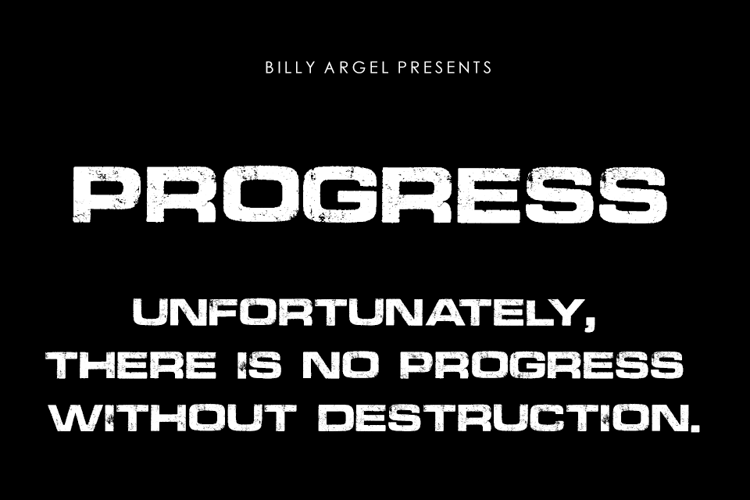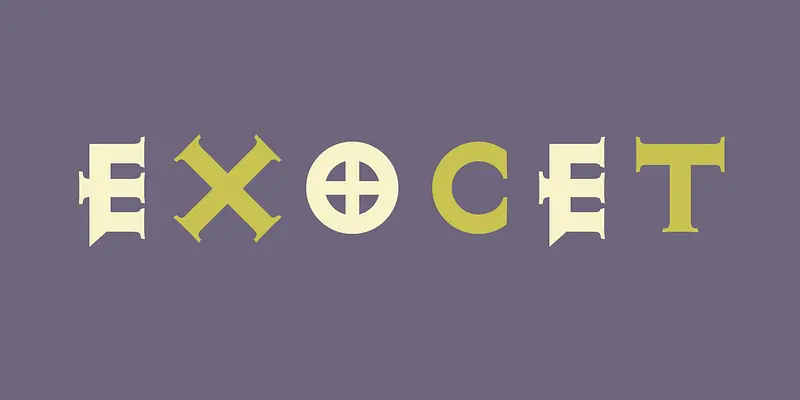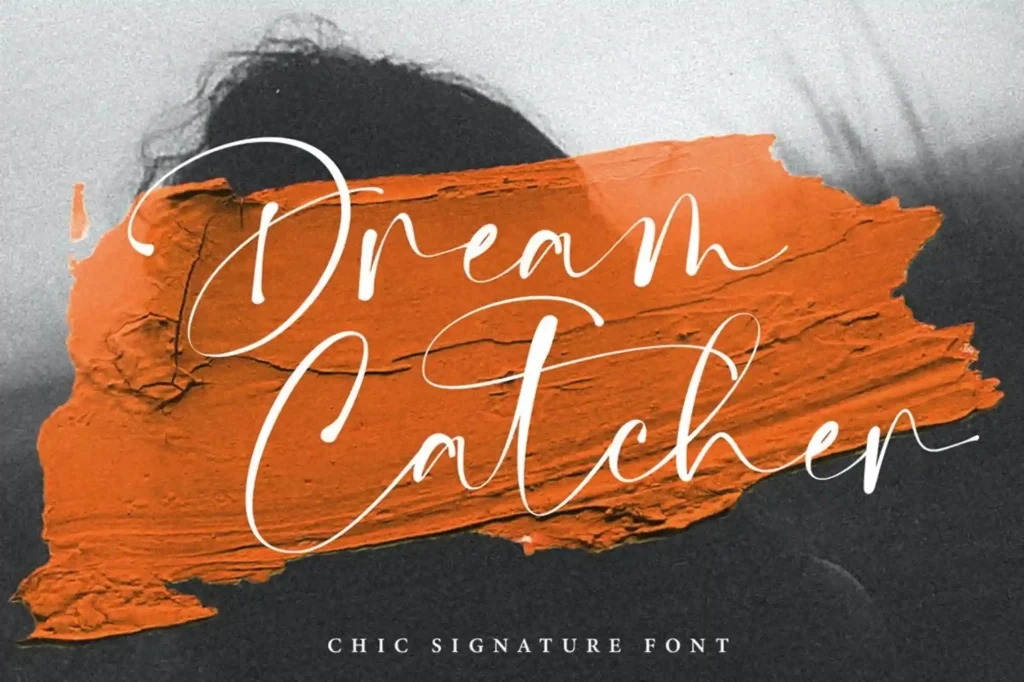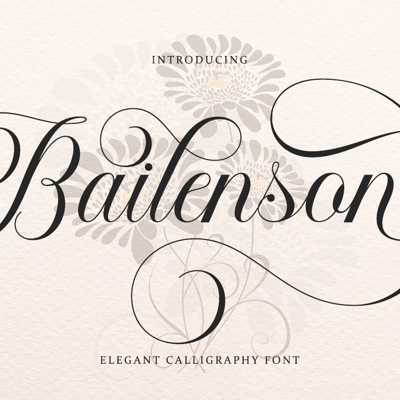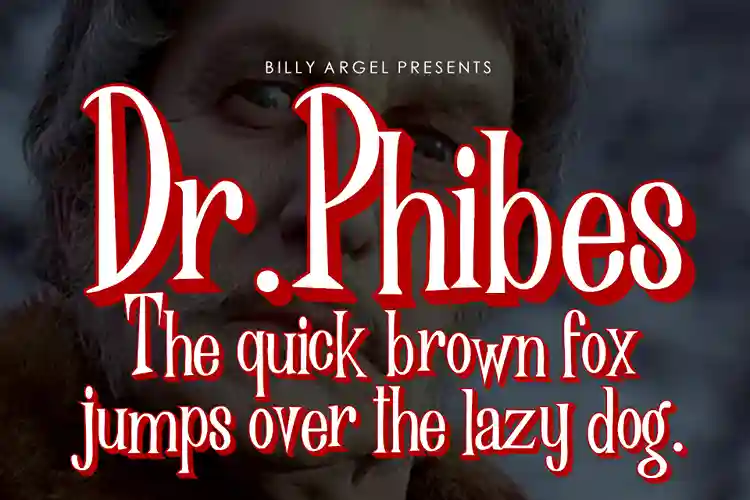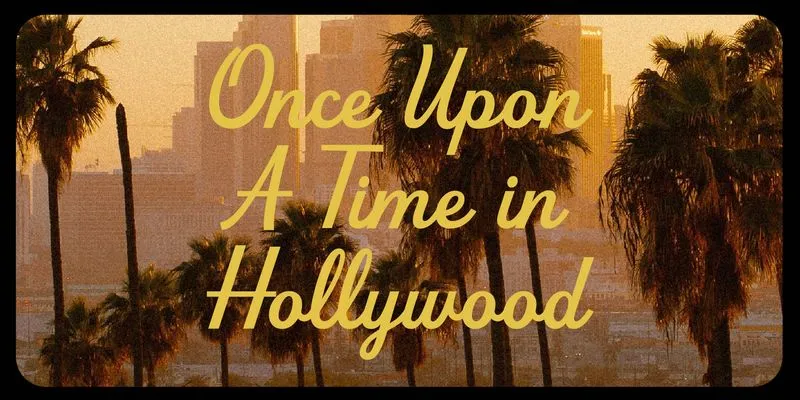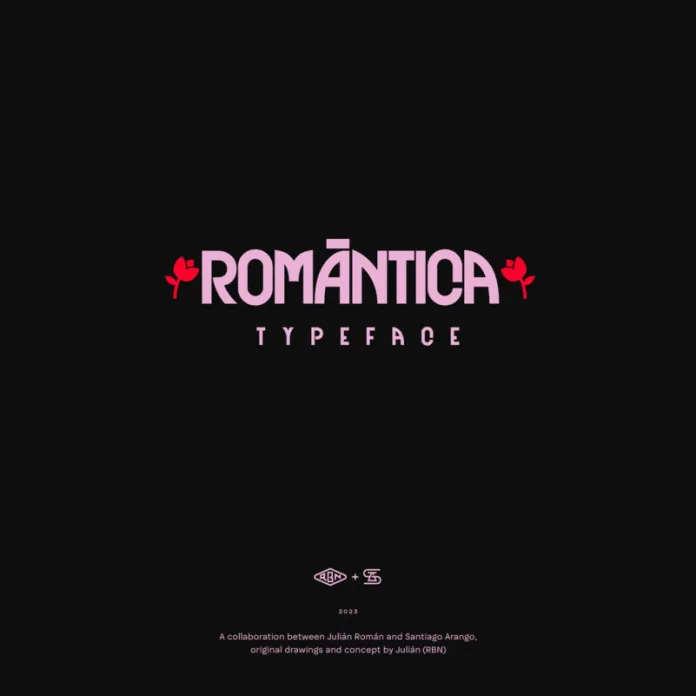
Movie poster fonts
10 Movie Poster Fonts to Make Your Design Go Viral
Typography is the cornerstone of movie poster design, acting as a silent storyteller that captures the emotion of a film and draws viewers in. From the tense curves of horror fonts to the futuristic lines of sci-fi epics, fonts set the tone before the viewer even reads the title. Think how the bold, modern typeface on the Avatar poster signalled an immersive futuristic world or how the vintage type in Stranger Things evoked 1980s nostalgia.
Why Fonts Matter in Movie Posters
Fonts aren’t just text; they’re visual cues. The typeface on a poster has the power to take you into the universe of a story, giving you an instant sense of style, tone, and mood. For example:
The Star Wars Saga
• Typography Analysis: Star Wars uses a bold sans-serif font with clean, futuristic edges. Over the years, this typography has become synonymous with space epics and intergalactic storytelling.
• Why It Works: The clean lines and simple geometry of the font mirror the advanced technology and grandeur of the Star Wars universe. Its bold presence immediately establishes a sense of scale and adventure.
• Cultural Impact: From the original trilogy to modern spinoffs, the typography remains iconic. It’s often imitated in sci-fi movie posters to evoke the same sense of cosmic wonder.
La La Land
• Typography Analysis: This musical masterpiece chooses a retro yet eye-catching serif typeface, reminiscent of classic Hollywood posters from the golden age of cinema.
• Why It Works: The font conveys elegance and nostalgia, perfectly aligning with the film’s tribute to the glamour of vintage Hollywood musicals. Its thin strokes and sharp serifs give it a timeless charm, mirroring the romantic and dreamy narrative.
• Cultural Impact: The font not only captured the aesthetic of old Tinseltown but also became a design staple for projects wanting to evoke classic Hollywood vibes. It highlighted the movie’s dual themes of ambition and nostalgia.
Joker
• Typography Analysis: The Joker poster utilizes a distressed, chaotic font that reflects the movie’s dark, gritty themes.
• Why It Works: The jagged and uneven design of the font evokes instability and tension, echoing the fractured psyche of Arthur Fleck. It gives a raw, handcrafted feel, symbolizing the societal breakdown at the heart of the film.
• Cultural Impact: This font choice set a precedent for modern thriller posters, showing that typography doesn’t need to be polished to make an impact. Instead, it can reflect raw emotion and chaos, much like the film’s protagonist.
General Takeaway
Each of these films used typography not just as a design element but as a storytelling device. From evoking nostalgia to creating a sense of unease, fonts can visually represent the themes and emotions of a movie, making them an indispensable part of poster design. Whether clean and futuristic or distressed and chaotic, the right font ensures that the poster becomes memorable and iconic.
Now, let’s look at a selected list of the top 10 movie poster fonts that can elevate your design to Hollywood-level quality.
The Top 10 Movie Poster Fonts That Will Make Your Design Go Viral
Using the right font is key to creating an eye-catching movie poster. Whether you’re designing for a science-fiction thriller or a romantic drama, the typeface you choose can instantly set the mood. Let’s explore the best fonts for movie posters that can make your design stand out.
1. Lumière by GabrielaPaiva21
• Perfect for: Elegant period dramas or sophisticated thrillers.
• Overview: Lumière is a highly versatile font family boasting 58 unique fonts. Inspired by the golden age of cinema, this typeface captures the glamour and sophistication of the silver screen.
• Why It Works: With 58 fonts offering various weights and styles, Lumière is adaptable for a wide range of applications, from striking main titles to subtle supporting text. Its clean yet dramatic design bridges the gap between vintage charm and modern elegance, making it an excellent choice for projects with a timeless aesthetic.
2. PROGRESS Font by Billy Argel Fonts
• Perfect for: War-themed movies and sci-fi blockbusters.
• Overview: A gritty and bold sans-serif, PROGRESS carries a sense of urgency and strength. Its sharp edges and strong strokes make it an excellent choice for high-intensity action movies or post-apocalyptic thrillers.
• Why It Works: The industrial design lends itself to themes of survival and combat. Its readability ensures that your movie title grabs attention even from a distance.
3. Alfrere Sans™ by Greater Albion Typefounders
• Perfect for: Classic suspense and Hitchcock-inspired films.
• Overview: This font pays homage to mid-20th-century typography. Its subtle serif details and uniform structure add a retro charm, perfectly suited for classic mysteries or dramas.